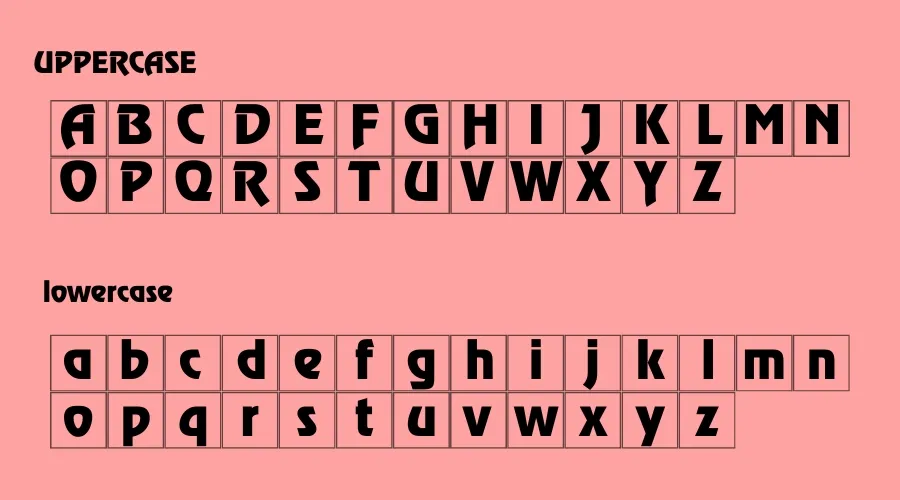
About Renfrew Font
This Renfrew Font is a fancy typeface that was developed by unknown graphic designers. It has amazing pairing quality and is available free for all your fun methods and tasks. You can easily pair this font with Mouser Font and make graceful designs.
This typeface is available in various unique styles and weights such as bold, regular, and italic. The subfamily of this typeface is regular.
Additionally, this typeface texture makes it preferable for any type of design both print and digital projects. The online generator tool of this typeface will convert all your normal or simple textures into stylish or modern shapes.